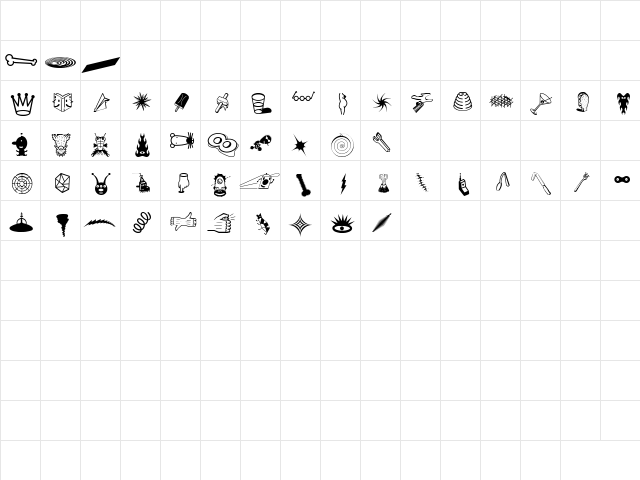
ThingbatTwo Regular
Design Context for ThingbatTwo Typeface
ThingbatTwo is a composed and adaptable typeface that performs quietly and consistently across a wide range of design contexts. Its slender proportions lend an understated elegance to any composition.